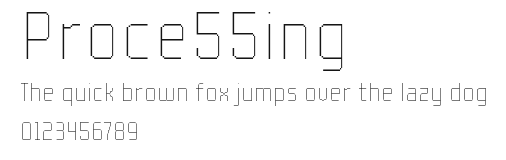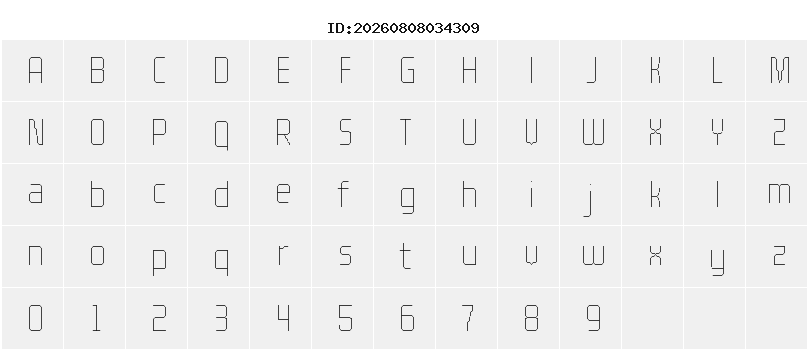
Proce55ing Preview
• Font Name: Proce55ing
• Font Style: Light
• Full Font Name: Proce55ing Light
• PostScript Name: Proce55ing-Light
• Manufacturer: YouWorkForThem
About Proce55ing.ttf
Proce55ing.ttf is a modern, elegant sans-serif font designed for ultimate readability and visual harmony. Perfect for branding, headlines, web design, and print materials.